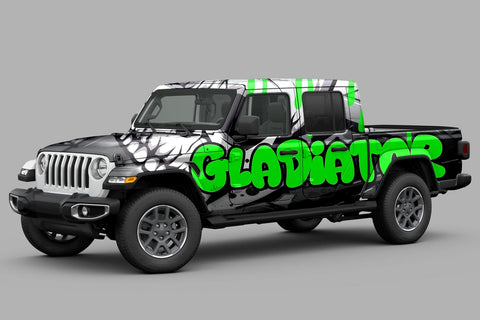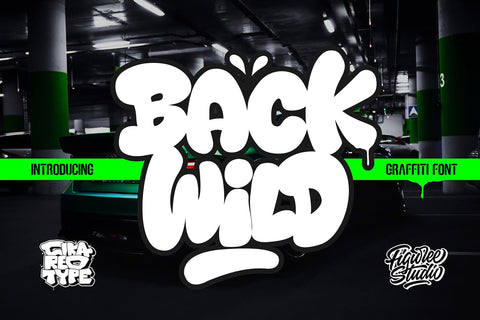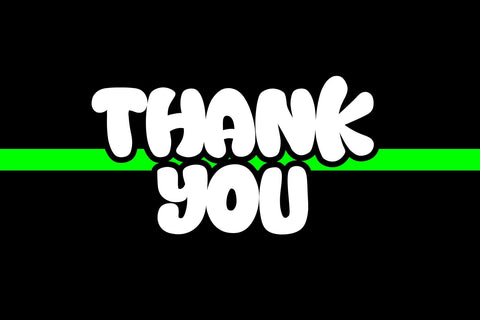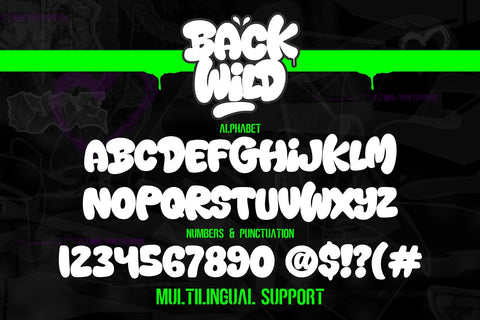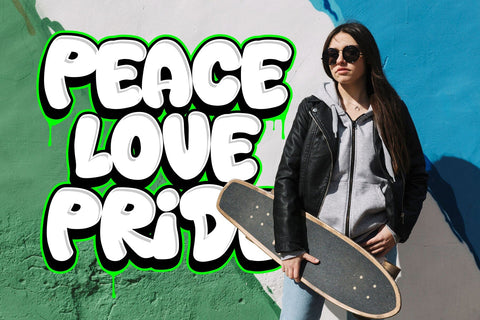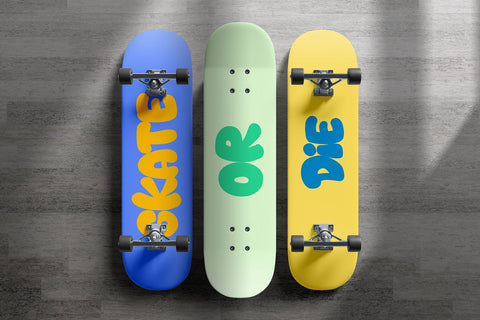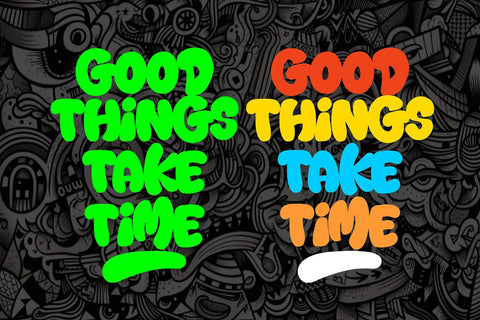
Back Wild - Thick and Chubby Graffiti Font
"Back Wild" is a bold and chubby graffiti font that includes swash characters. Fonts with these attributes generally feature bold and wide letterforms, often with playful and rounded elements. Swash characters add decorative and stylish touches to the font, If you have any specific questions or if there's anything specific you'd like to know or discuss about graffiti fonts or design, feel free to ask!
- Graffiti Characters looks